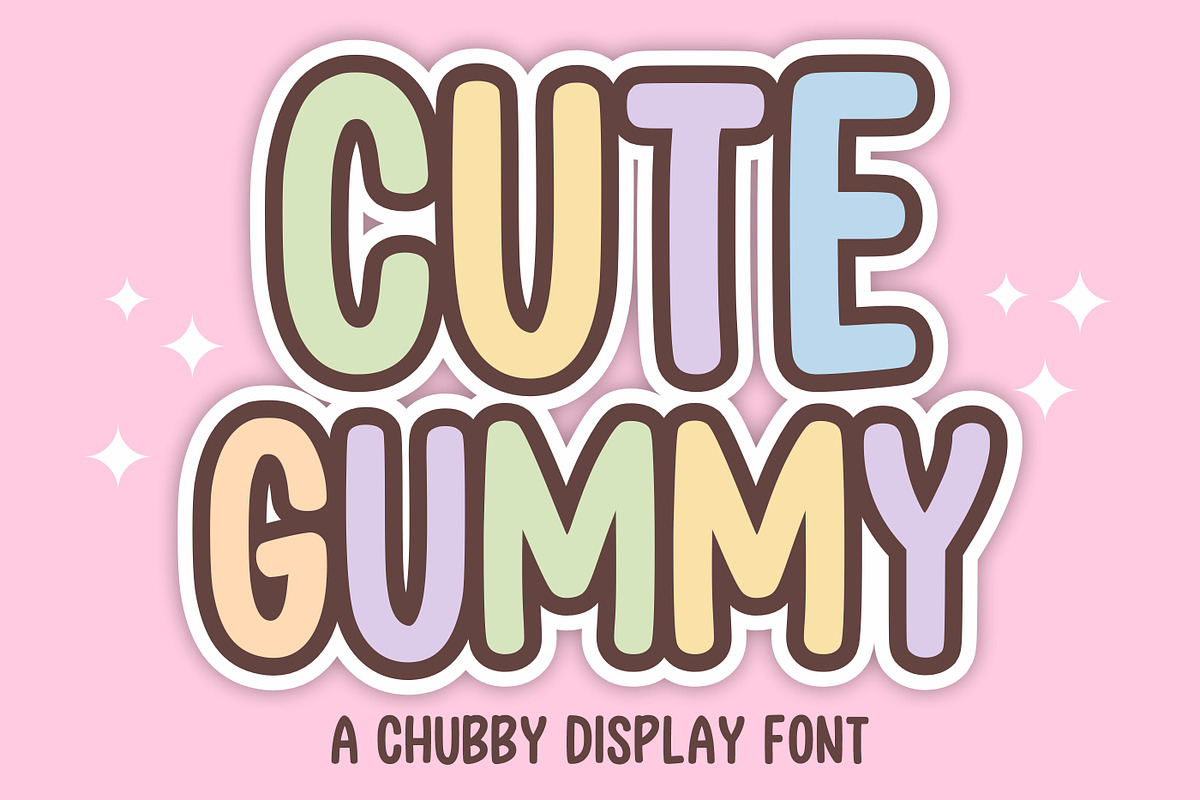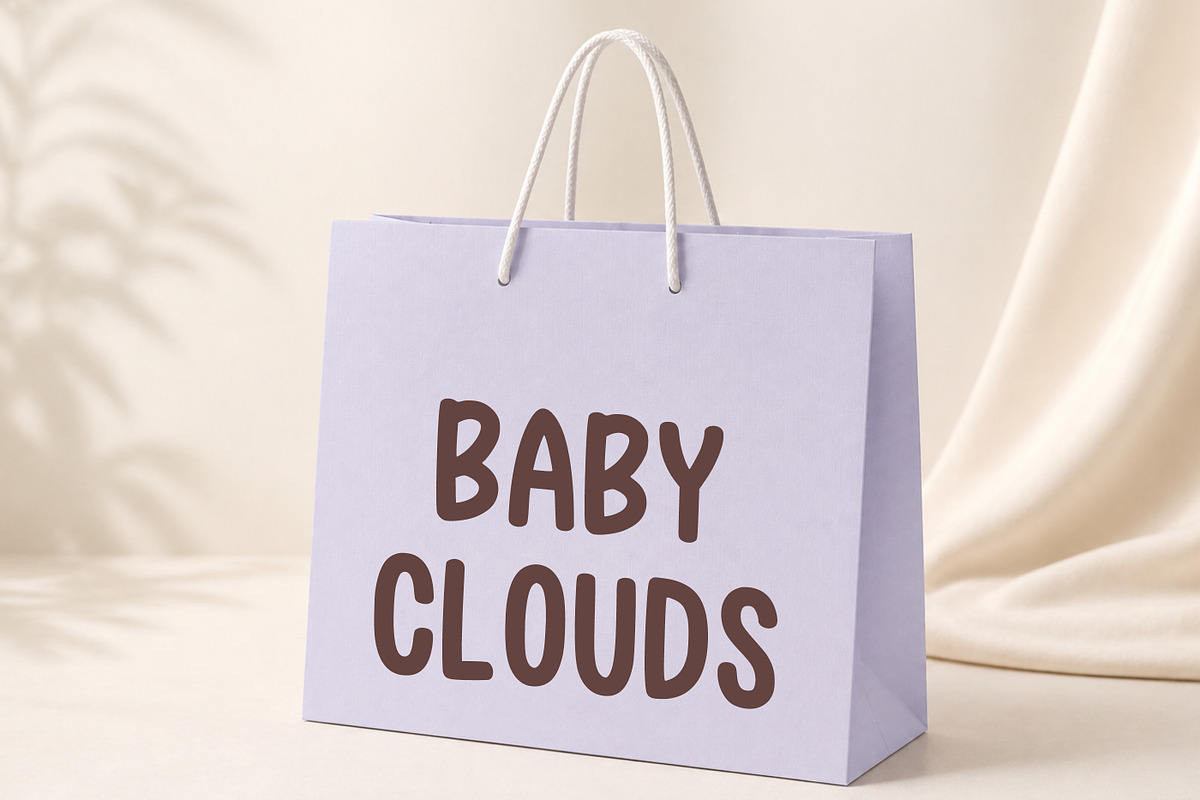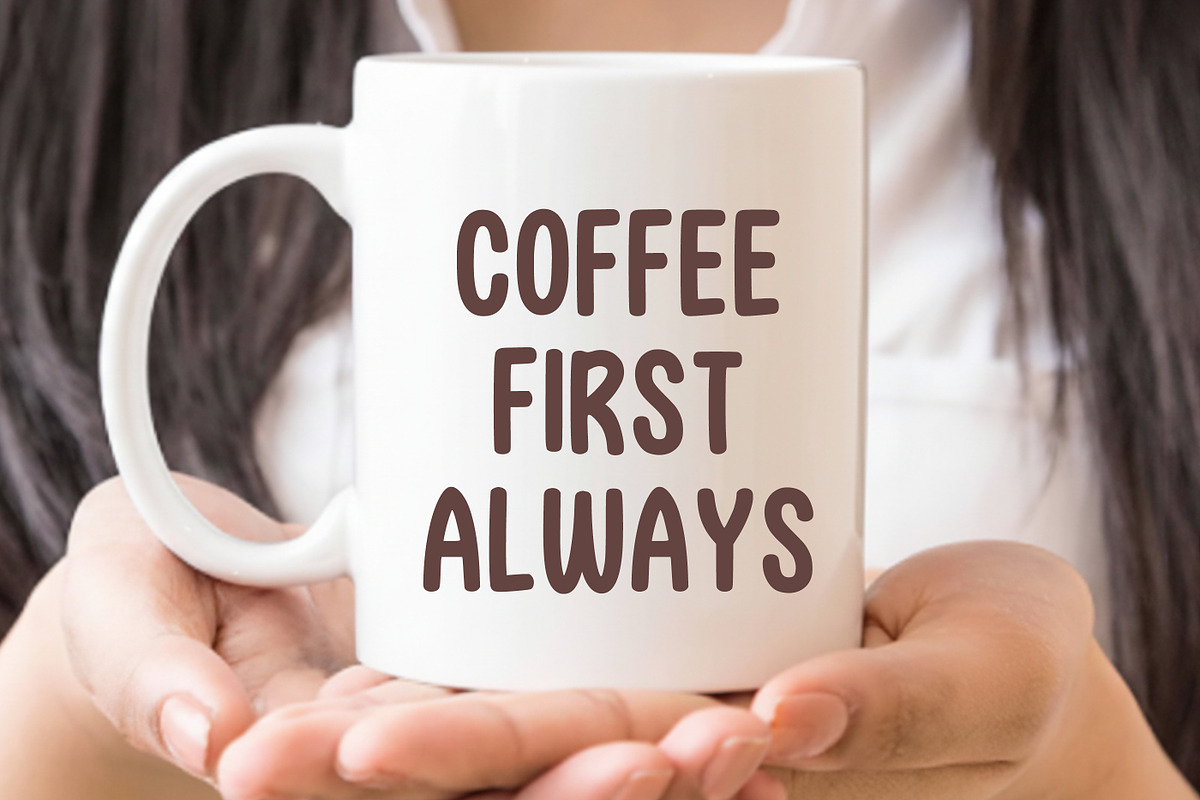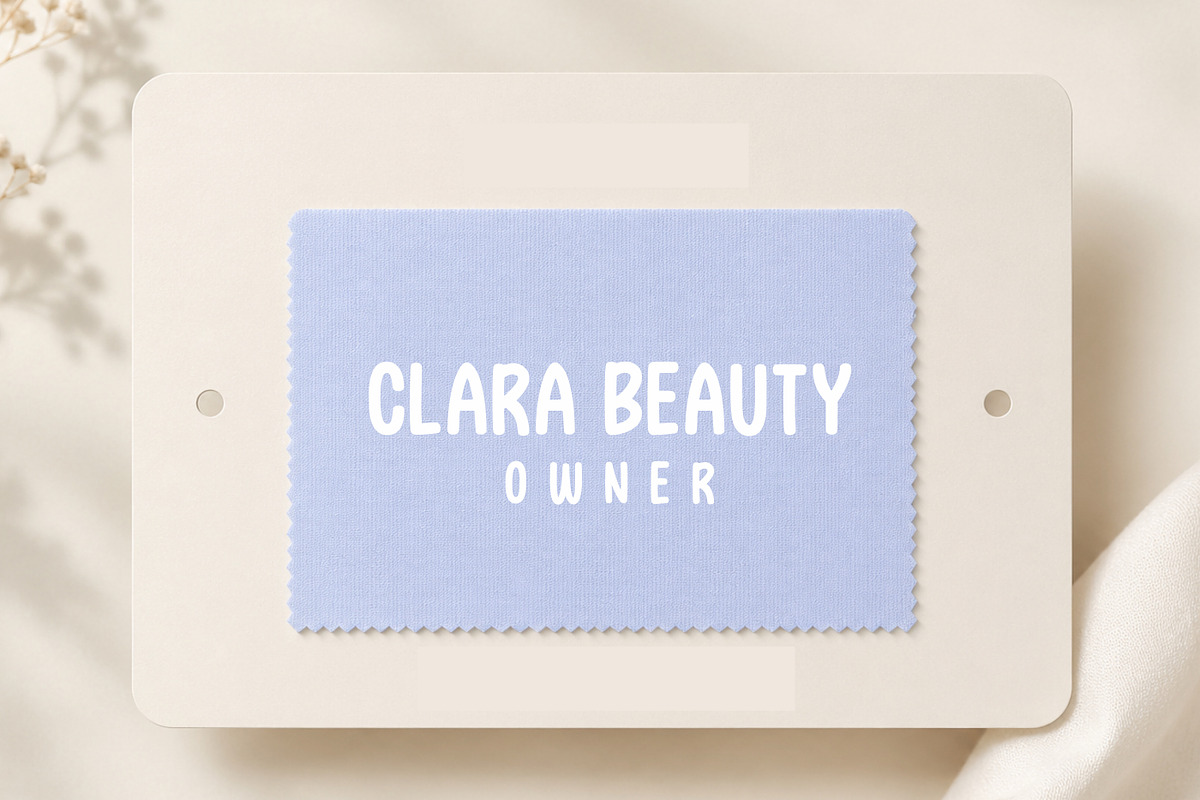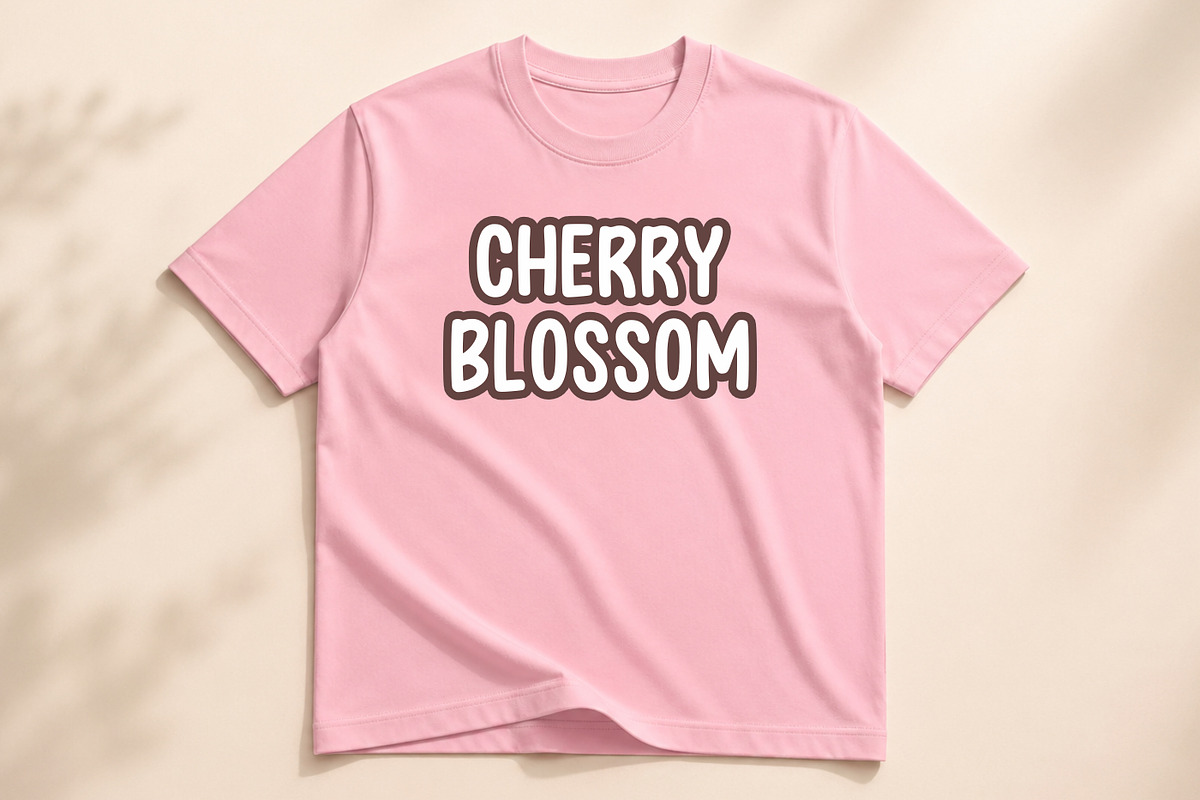
Cute Gummy
Cute Gummy is a fun and chubby display font inspired by soft gummy candy shapes and cheerful pastel colors. With its rounded edges and bold, friendly style, this font is perfect for adding a cute and joyful touch to your designs.
Ideal for kids’ projects, branding, packaging, posters, social media graphics, and more, Cute Gummy brings a sweet and playful personality to every creation.
- Uppercase letters
- Lowercase letters